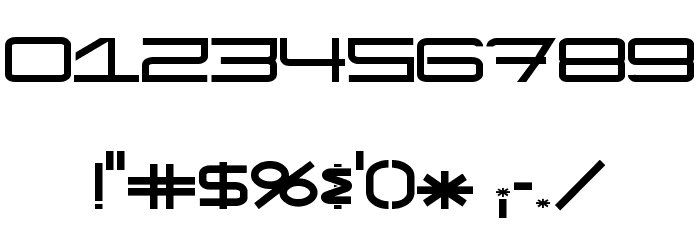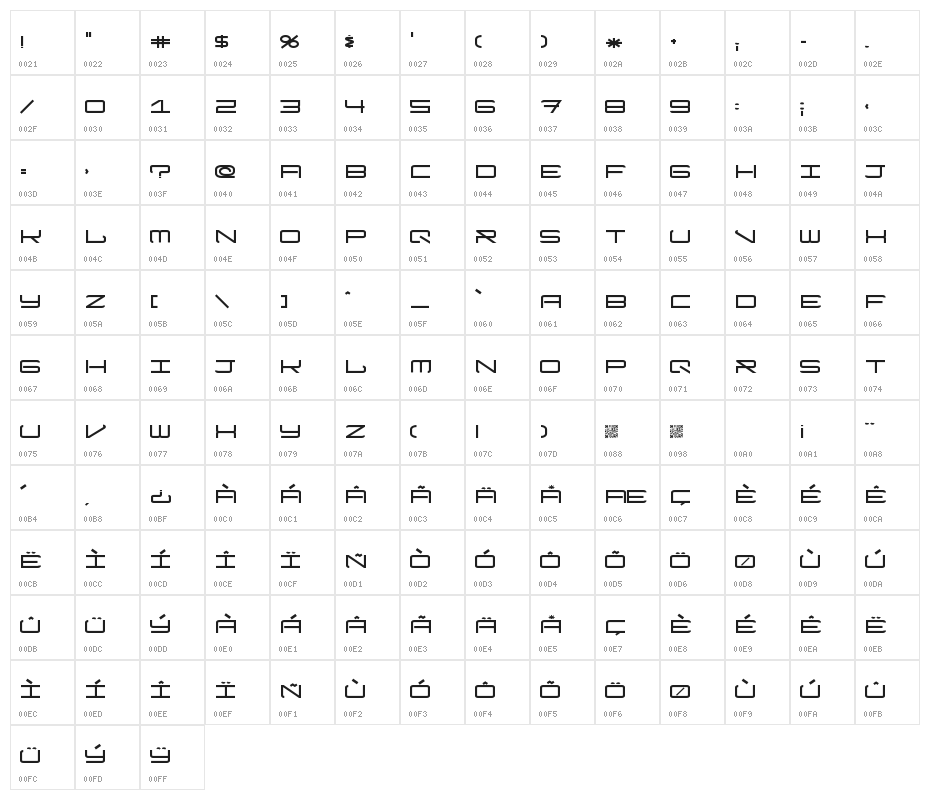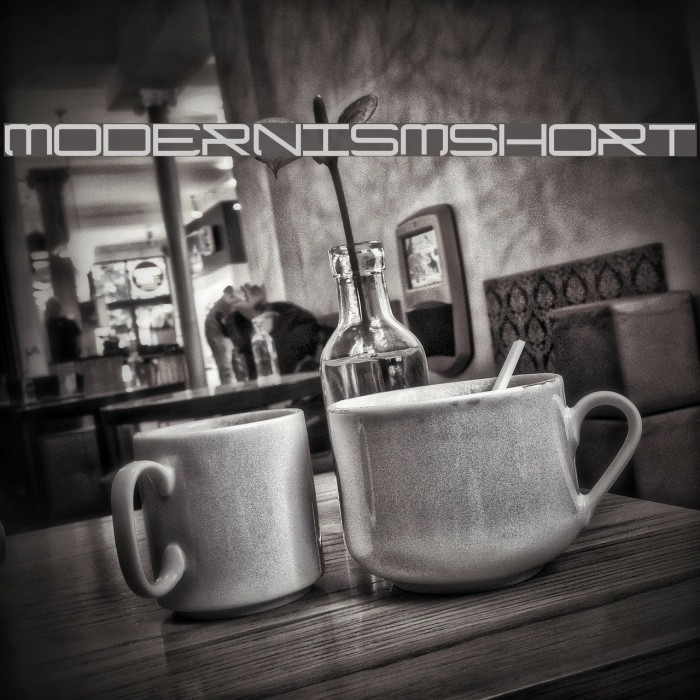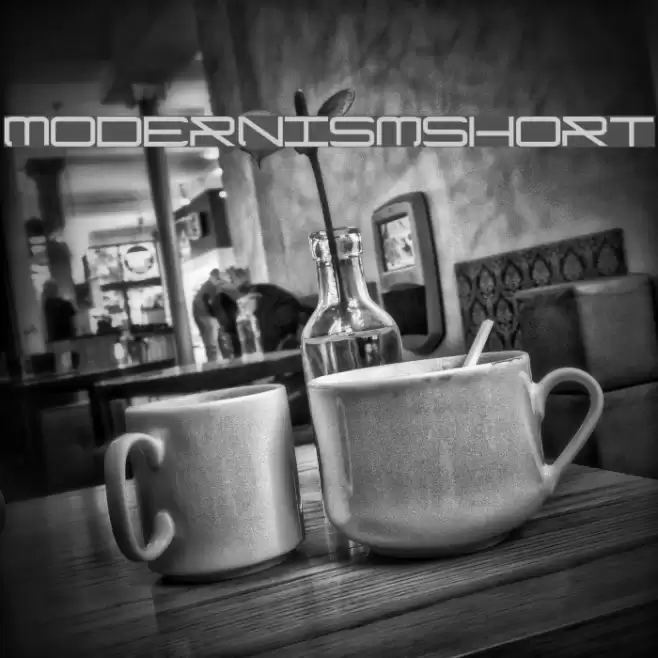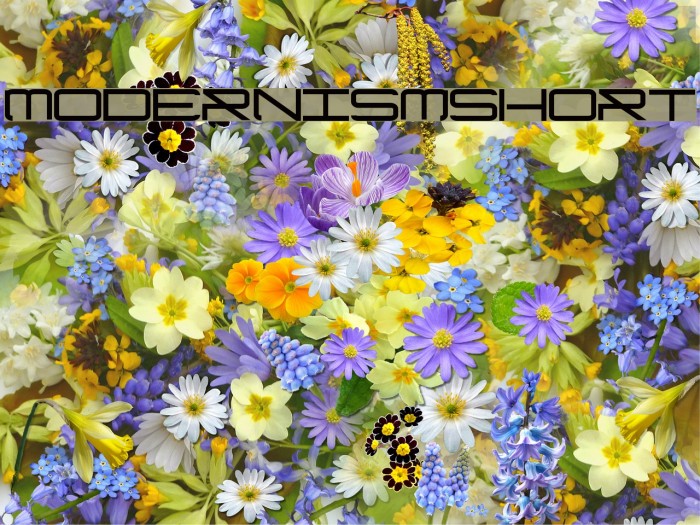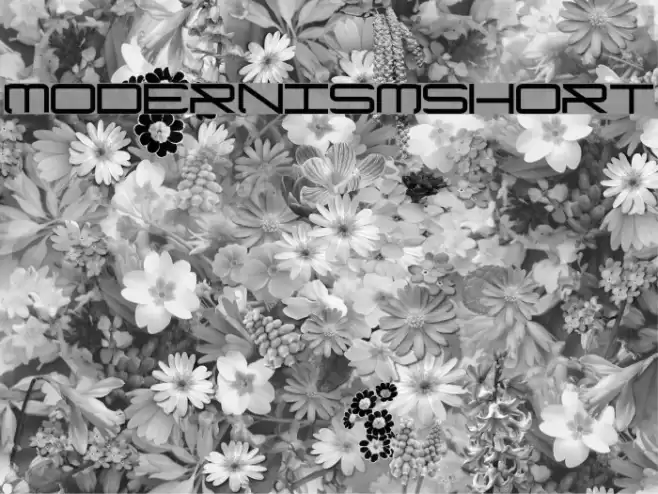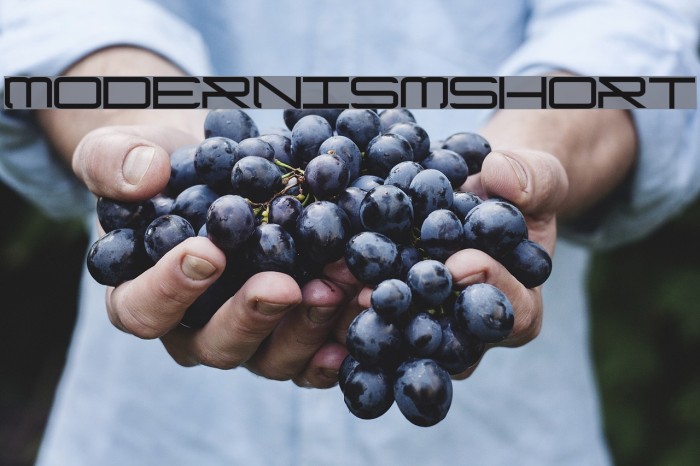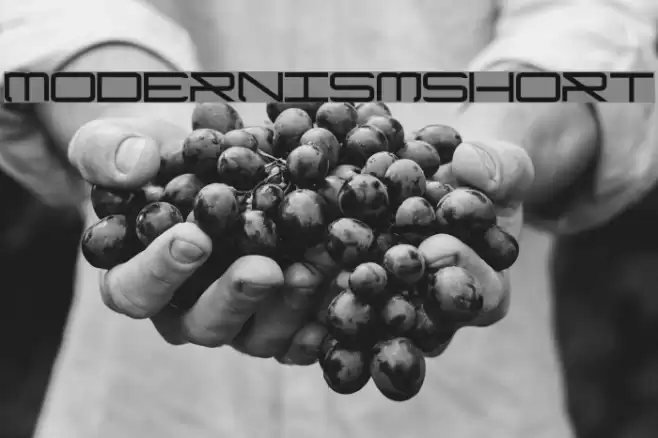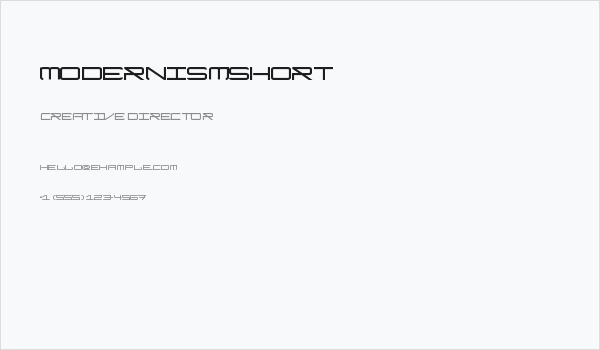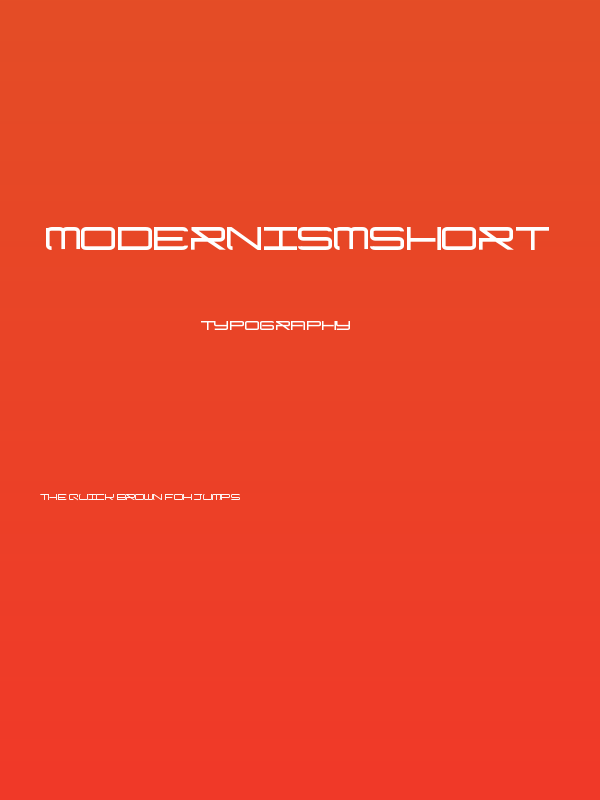
ModernismShort Font
ModernismShort Description
This font features a sleek, geometric design with a futuristic aesthetic. The characters are constructed with clean, straight lines and sharp angles, giving it a modern and technical appearance. The uppercase and lowercase letters maintain a consistent style, with a uniform height and width that enhances readability. The numerals and special characters are designed to match the overall theme, providing a cohesive look across all elements. The font's minimalistic approach makes it suitable for contemporary designs, emphasizing clarity and precision.